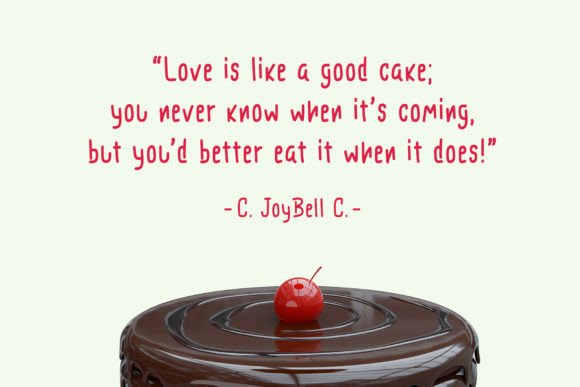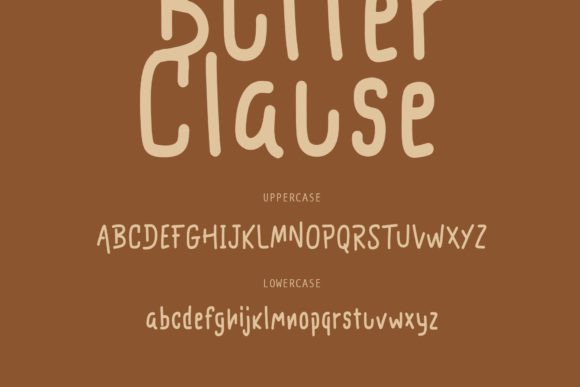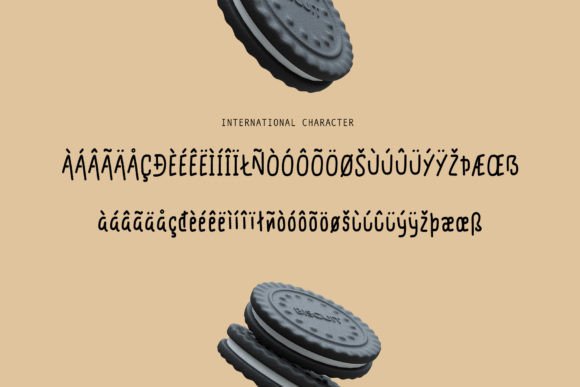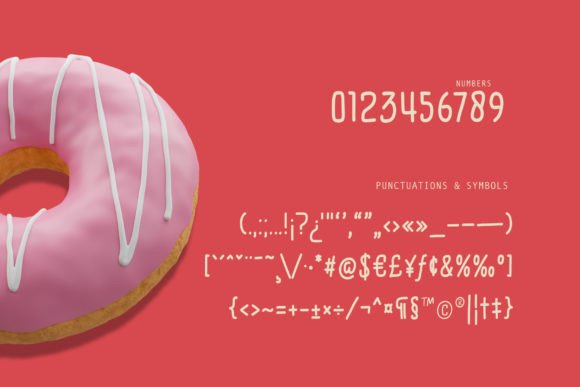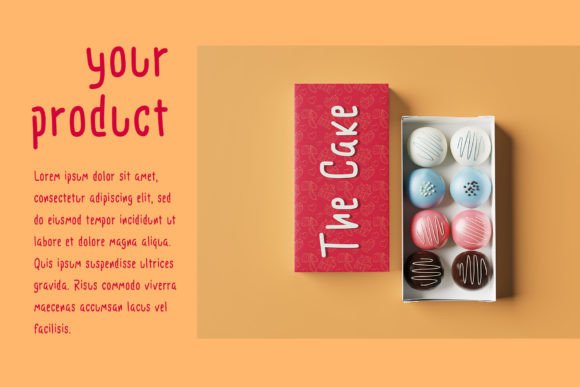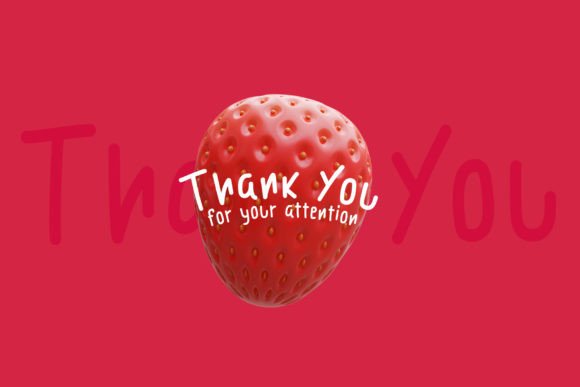
The Magical World of Butter Claus Font
Have you ever been in the middle of a design project, and suddenly, you’re stuck on finding the perfect font? I recall a recent experience where I was working on a romantic dinner menu for a client’s wedding, and I just couldn’t find a font that captured the warmth and affection I wanted to convey. That’s when I stumbled upon the enchanting Butter Claus Font! ✨
A Personal Review of Butter Claus Font
I’m excited to share my honest review of Butter Claus Font, and here’s what I think:
- ✅ Unique and appealing characters that add a touch of romance to any design
- ✅ Perfect for food, beverage, and cake-related designs, or anything that requires a dash of love and affection
- ✅ Handwritten display font with a personal and whimsical feel
- ✨ The font’s versatility allows it to be used for a wide range of creative projects
While Butter Claus Font is truly amazing, there are a few minor quirks to consider:
- 🤔 Limited use of uppercase letters, but the font still looks great in all lowercase
The Story Behind Butter Claus Font
Butter Claus Font was designed with love and care by a talented typographer who wanted to create a font that captures the warmth and affection of handwritten script. The designer’s inspiration came from traditional handwritten fonts, with a modern twist to make it unique and appealing.
| Font Name | Butter Claus Font |
| Author | Tera Asset Garage |
| What type of designs is Butter Claus Font best suited for? | Butter Claus Font is perfect for designs related to food, beverages, cakes, or anything romantic filled with love and affection. |
| Does Butter Claus Font support OpenType features? | Yes, Butter Claus Font supports OpenType features, including glyphs and stylistic alternates. |